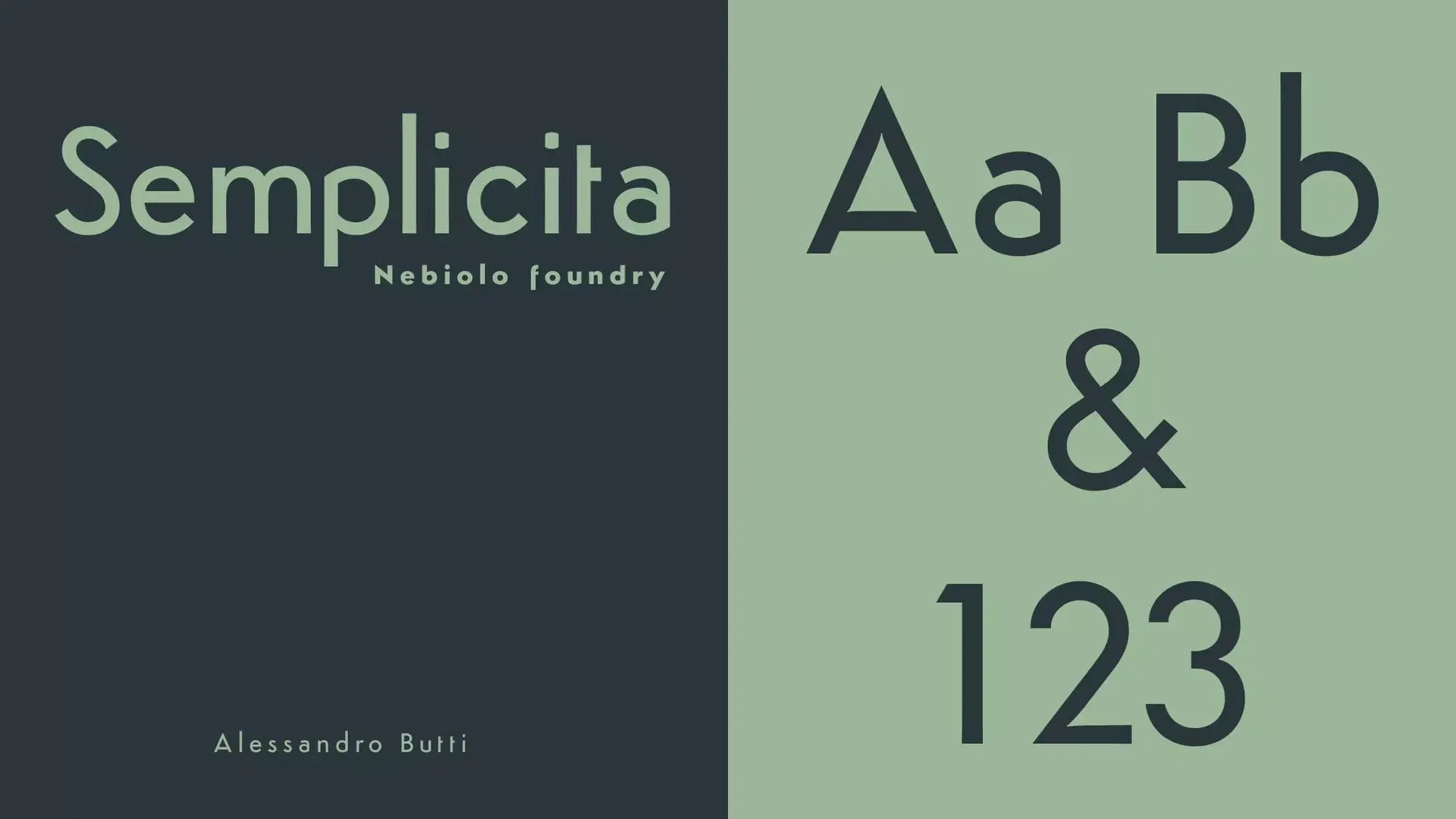
About Semplicita Font
Semplicita is a geometric sans-serif typeface created by Alessandro Butti for the Nebiolo foundry. Semplicita was named for the Italian meaning of “simplicity”, is an illustration of the current trend of “geometric” sans-serifs such as Erbar and Futura which appeared in the latter part of 1920 and the early 1930s. These designs were inspired by the proportions of the circle as well as the square, and also the influences on Roman square capitals, which broke from the conventional “grotesque” designs of the 19th century. Semplicita is, however, a bit different. It has many unusual features that include the ‘U’ having an angle that follows the classic model as well as an ‘f’ that descends below the line. You can download Semplicita font for free. To free download this amazing typeface scrool down to our download section.
It is available in four weights namely Medium, Light, Book and Bold, as well as their Italics. Semplicita also includes lowercase and uppercase symbols, numerals, and letters and alternative characters. The Pro version comes with OpenType features and more than 850 glyphs in each font.
Usage of Semplicita Font
Since the font comes with four weights as well as geometric style, it’s perfect for nearly every area you’ll need. If you are planning to create an attractive design and wish to include words, Semplicita font is a ideal choice for you. It is possible to use Semplicita font for the platforms listed below:
- Document.
- Logo.
- Poster.
- Presentation.
- Text & Heading.
Semplicita is perfect for heading. You can use this geometric font as a heading font on your design. For body text open sans is one of the trusted and widely used name. So, use Open sans font for body text. Hopefully this font combination will give a new dimension to your design.
WHAT TYPE OF FONT IS Semplicita?
Semplicita is a geometric sans-serif typeface created by Alessandro Butti for the Nebiolo foundry.